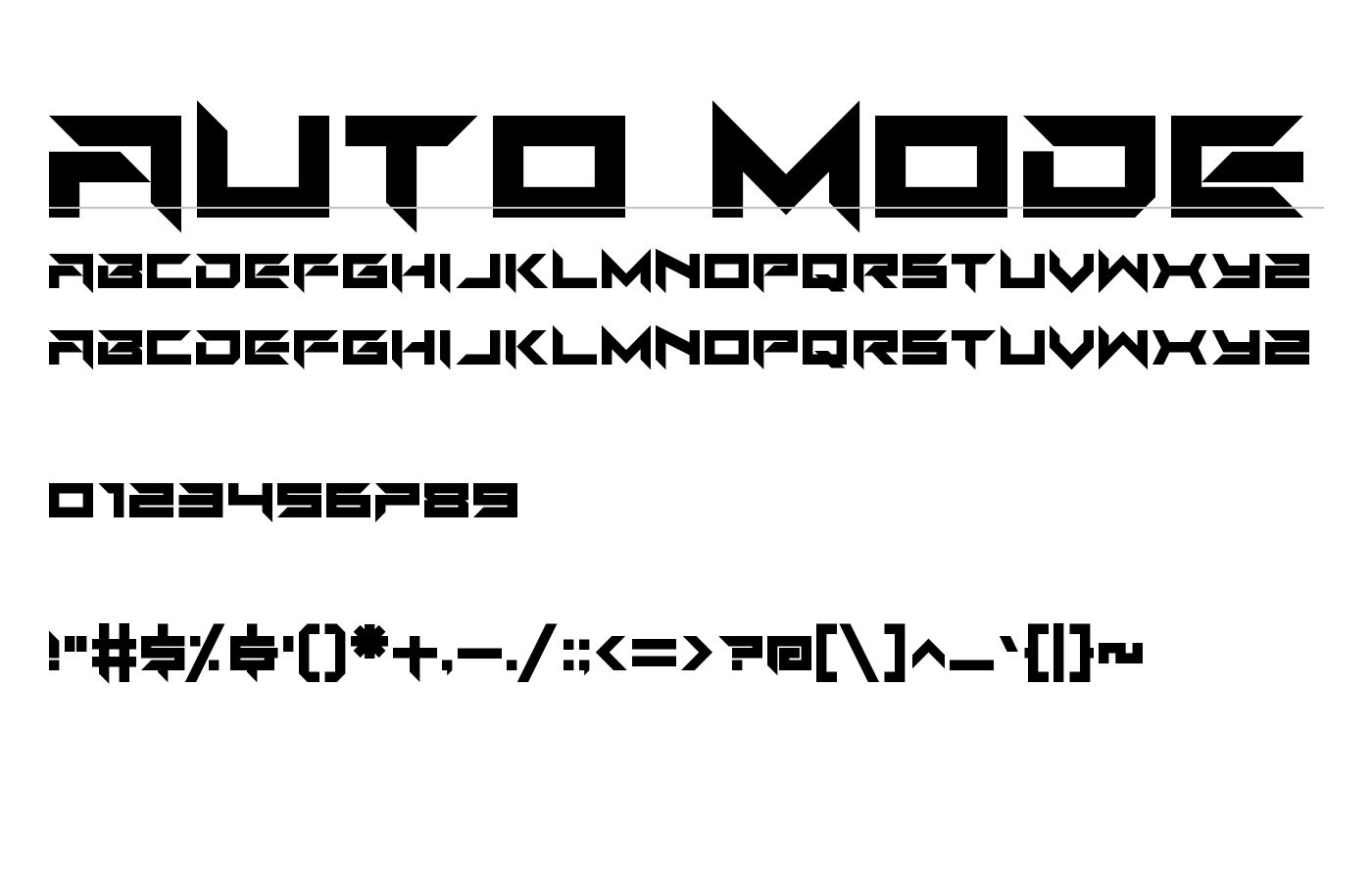
Auto Mode is a bold, geometric sans serif font with a futuristic and angular design that evokes a high-tech, mechanical feel. Its sharp edges and unique letterforms make it ideal for science fiction, technology branding, and edgy headlines where a modern, dynamic impact is desired. This font works best in logos, posters, and digital media looking for a sleek, modern vibe with a strong visual presence.
Auto Mode Font
About Auto Mode Font
| Font family | Auto Mode Font |
| Designer | Jéson Garnica |